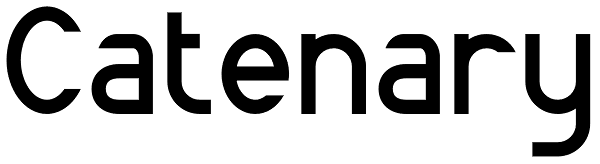
Catenary
The Catenary typeface was designed with the goal of creating an extremely-readable sans-serif font that could weather the future. Inspired by the beauty of the catenary curve, it's a blend of the transitional and the geometric that allows it to be...